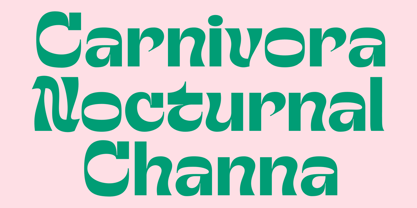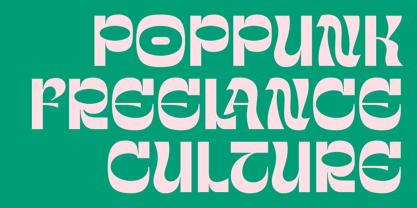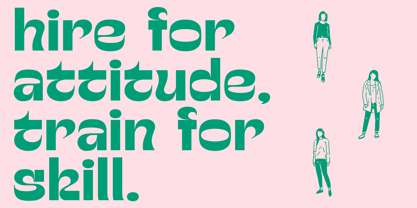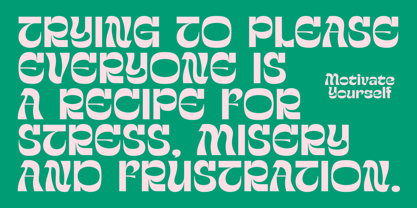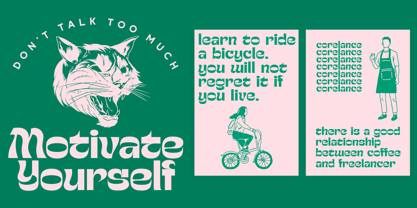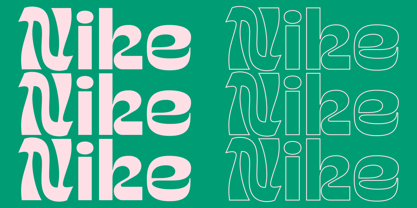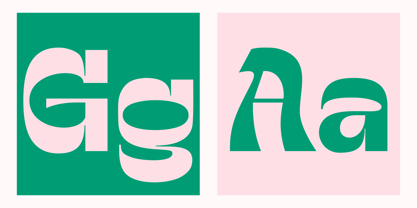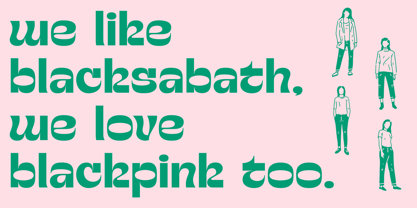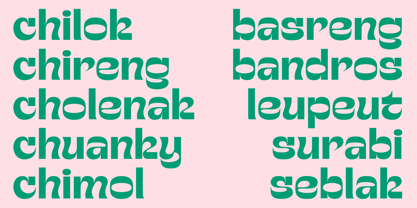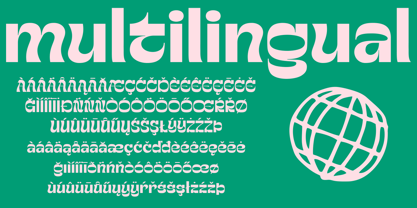
The Chuten Font Family was designed by Reza Rasenda and published by Zealab Fonts Division. Chuten contains 1 styles. More about this family
Chuten is a bold, expressive display typeface that masterfully blends retro-psychedelic curves with modern geometric structure. Its most striking feature is the high contrast between the thick, solid stems and the fluid, liquid-like terminals, particularly visible in the "c" and "e." The letterforms discard traditional proportions in favor of a playful, experimental rhythm, where sharp angular cuts coexist with soft, sweeping waves, creating a sense of movement and "melted" elegance that feels both vintage and futuristic. This typeface exudes a confident, avant-garde personality. The clever use of negative space and the unique "t" with its wave-like crossbar suggest a custom-crafted feel often found in high-end fashion or contemporary lifestyle identities. It avoids the rigidity of standard sans-serifs, opting instead for a sculptural quality that demands attention, making it an ideal choice for logos, headlines, and any creative project looking to strike a balance between organic flow and bold authority.